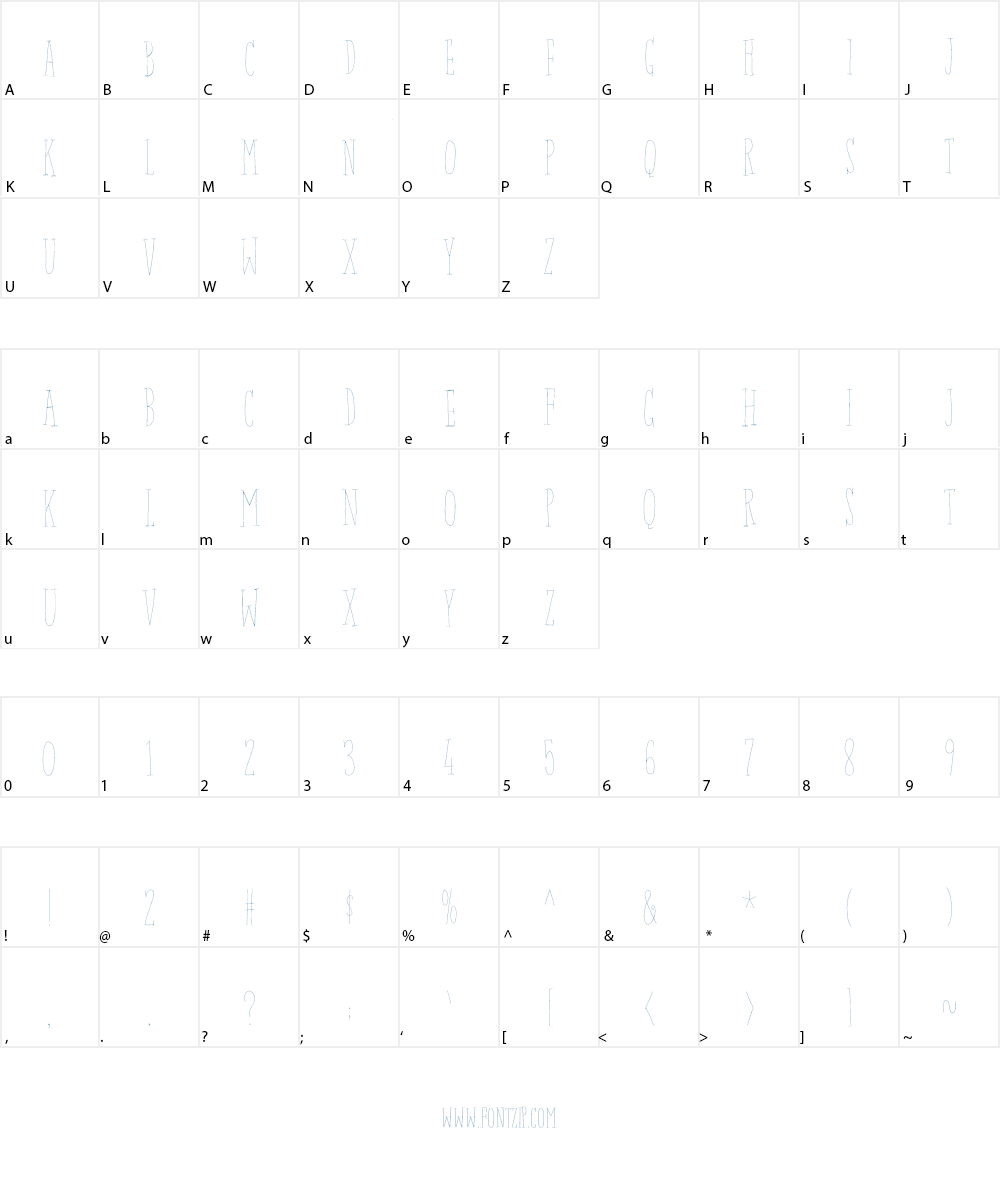
Is there anything more satisfying, alluring or mouth-watering than bacon?
Comes with contextual alternates, which means that the font has got 8 different versions of each letter - this cycles as you type!